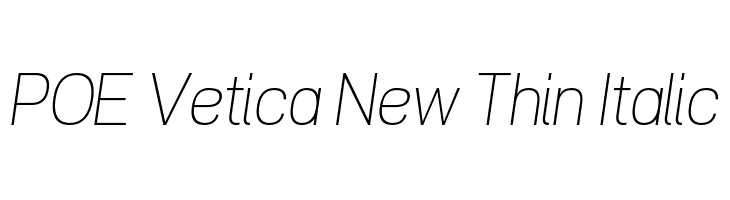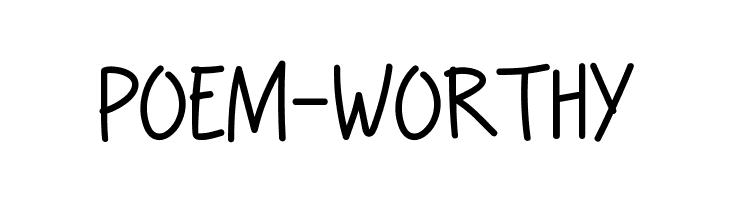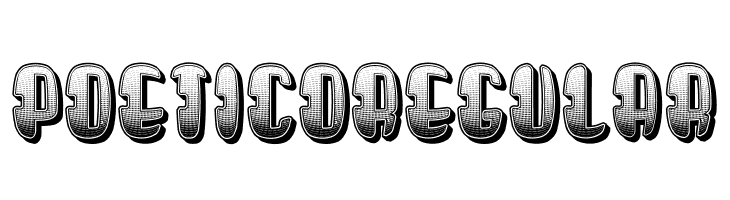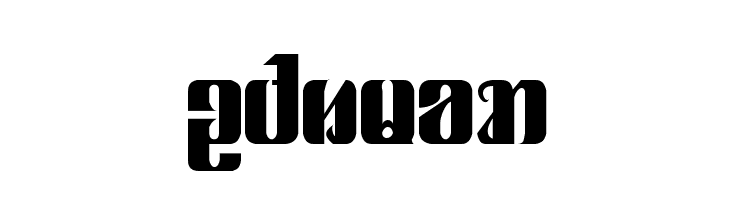
• POE Vetica New Thin Italic schriftart
A thin, italicized font with a modern and elegant style.
• POE Vetica UI schriftart
A modern, clean sans-serif font with uniform strokes and geometric shapes.
• poebya schriftart
A bold, modern font with thick strokes and angular shapes.
• POEM-WORTHY schriftart
Playful handwritten font with a casual style.
• PoesieConcreteRound schriftart
Experimental, abstract font using lines and waves instead of standard glyphs.
• PoeticJustice schriftart
A bold, expressive font with swirling, decorative strokes and a playful, artistic flair.
• Poetico Regular schriftart
A bold, decorative font with a three-dimensional, playful style.
• PoeticRoundsDue schriftart
Abstract, geometric display font with circular grid motifs.
• PoeticRoundsOne schriftart
A bold, geometric font with characters enclosed in circular frames, ideal for decorative use.
• PoeticRoundsThree schriftart
Abstract, geometric, circular pattern-based decorative font.